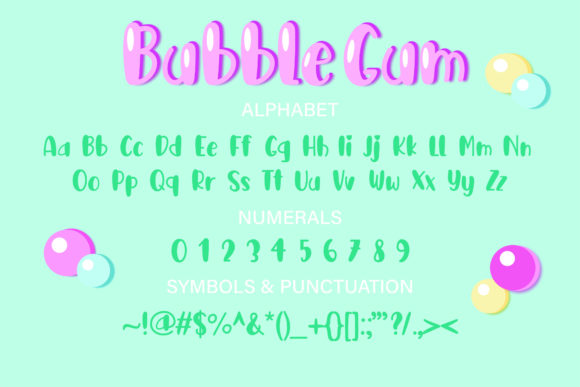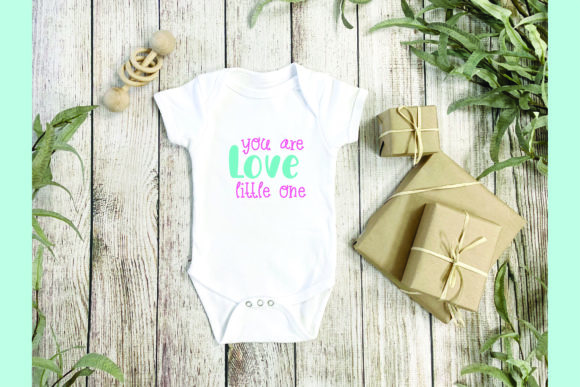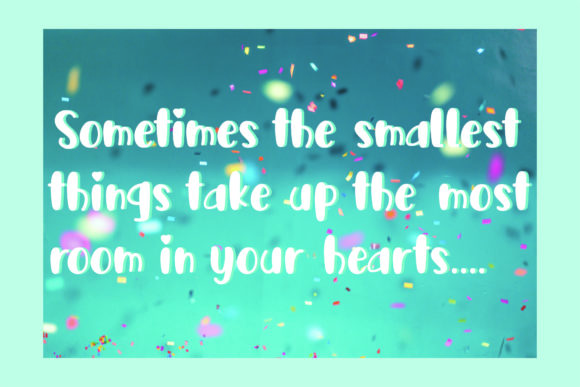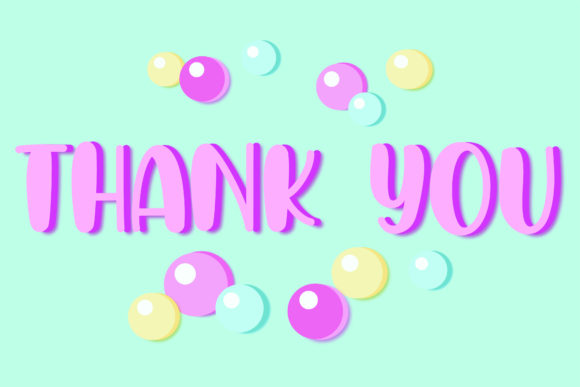
The Sweetest Font for Your Next Design Project
Who hasn’t been inspired by the simple joy of blowing bubbles with a piece of gum as a kid? It’s a moment that sparks creativity and brings a smile to our faces. For designers, this nostalgic feeling is exactly what they’re looking for when they need to add a playful touch to their work.
Enter the Bubble Gum Font, a delightful display font that embodies the whimsical spirit of childhood wonder. With its cute and bubbly design, this font is perfect for cartoon-related designs, children’s games, quotes, titles, brand names, book covers, posters, and any other creation that requires a dash of joy. Whether you’re working on a project for kids or simply want to inject some fun into your design, the Bubble Gum Font is a valuable addition to your toolkit.
Bubble Gum Font Key Features
- Font Family: Bubble Gum Font is a sans-serif font family designed to evoke a playful and fun atmosphere.
- Unique Characteristics: The font features a distinctive rounded shape and a subtle bubble-like effect, giving it a unique and playful appearance.
Bubble Gum Font Review
Overall, I’d say the Bubble Gum Font is a fun and playful addition to any design project. It’s perfect for creating a whimsical atmosphere and can add a touch of childhood nostalgia to your work. ✨
Here are some things that work well in the Bubble Gum Font:
- Unique character set: The font features a range of unique characters, from letters to symbols, that can add to its playful feel.
- Easy to read: Despite its playful appearance, the font is still easy to read and understand, making it a great choice for body text.
- Customization options: The font offers a range of customization options, including font sizes and colors, to help you tailor it to your specific design needs.
- Limited compatibility: The font may not be compatible with all operating systems or devices, which could limit its use in certain projects.
- Lack of sophistication: The font’s playful appearance may not be suitable for all types of projects, particularly those that require a more professional or sophisticated look.
- Overuse: The font’s unique character set can be overwhelming if overused, so be sure to use it sparingly to avoid visual clutter.
Overall, I’d say the Bubble Gum Font is a fun and versatile addition to any design project. With its unique character set and customization options, it’s perfect for creating a playful atmosphere. However, be sure to use it thoughtfully and consider its limitations to get the most out of this fun font.
For best results, use Bubble Gum Font in bold or italic styles to add emphasis to your text. This font is ideal for creating playful and eye-catching designs for social media graphics, posters, and flyers. It’s also great for adding a fun touch to wedding invitations, birthday cards, and other celebratory designs.